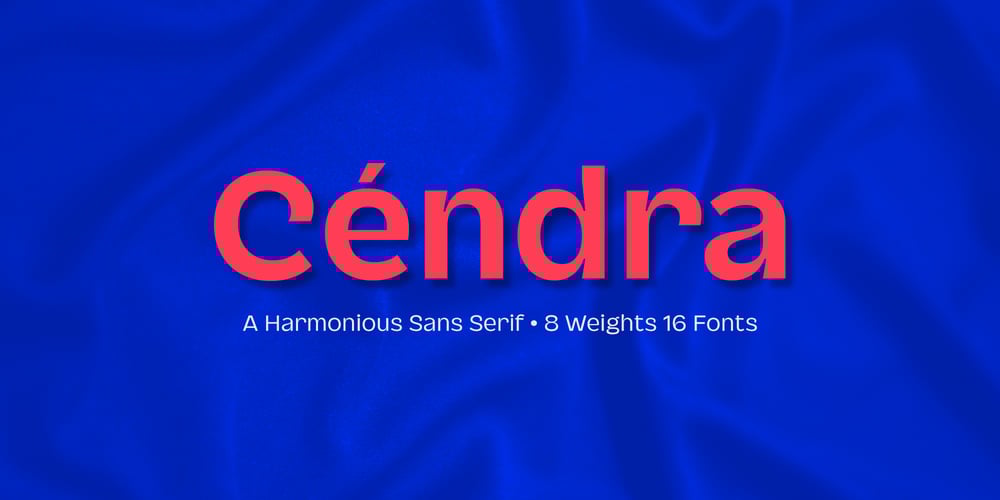
Cendra Font Family was designed by Arwan Sutanto and published by Locomotype. Cendra contains 16 styles and family package options. Introducing Cendra, a cutting-edge typeface meticulously crafted to seamlessly blend functionality and personality into a harmonious masterpiece. Elevate your design projects with Cendra, boasting an impressive range of 8 weights, from the delicate Thin to the commanding Black. Embrace the synergy of upright and matching italics versions, ensuring your designs exude a dynamic and cohesive aesthetic.